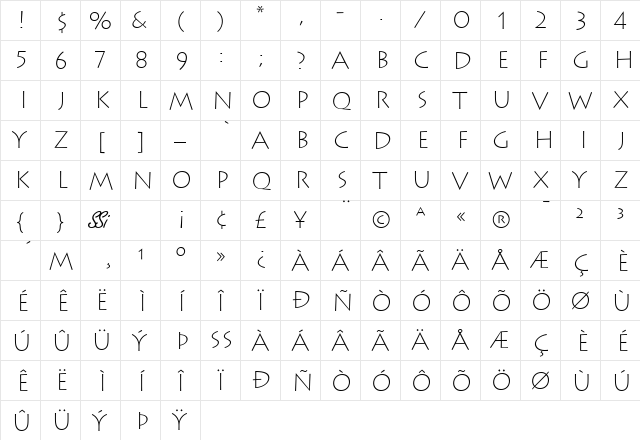
Austere Light SSi Extra Light Font Preview
Austere Light SSi Extra Light
Design Context for Austere Light SSi Typeface
Austere Light SSi takes a measured approach to typography — its balanced proportions and neutral character make it a reliable workhorse for both digital and print work. Its slender proportions lend an understated elegance to any composition.